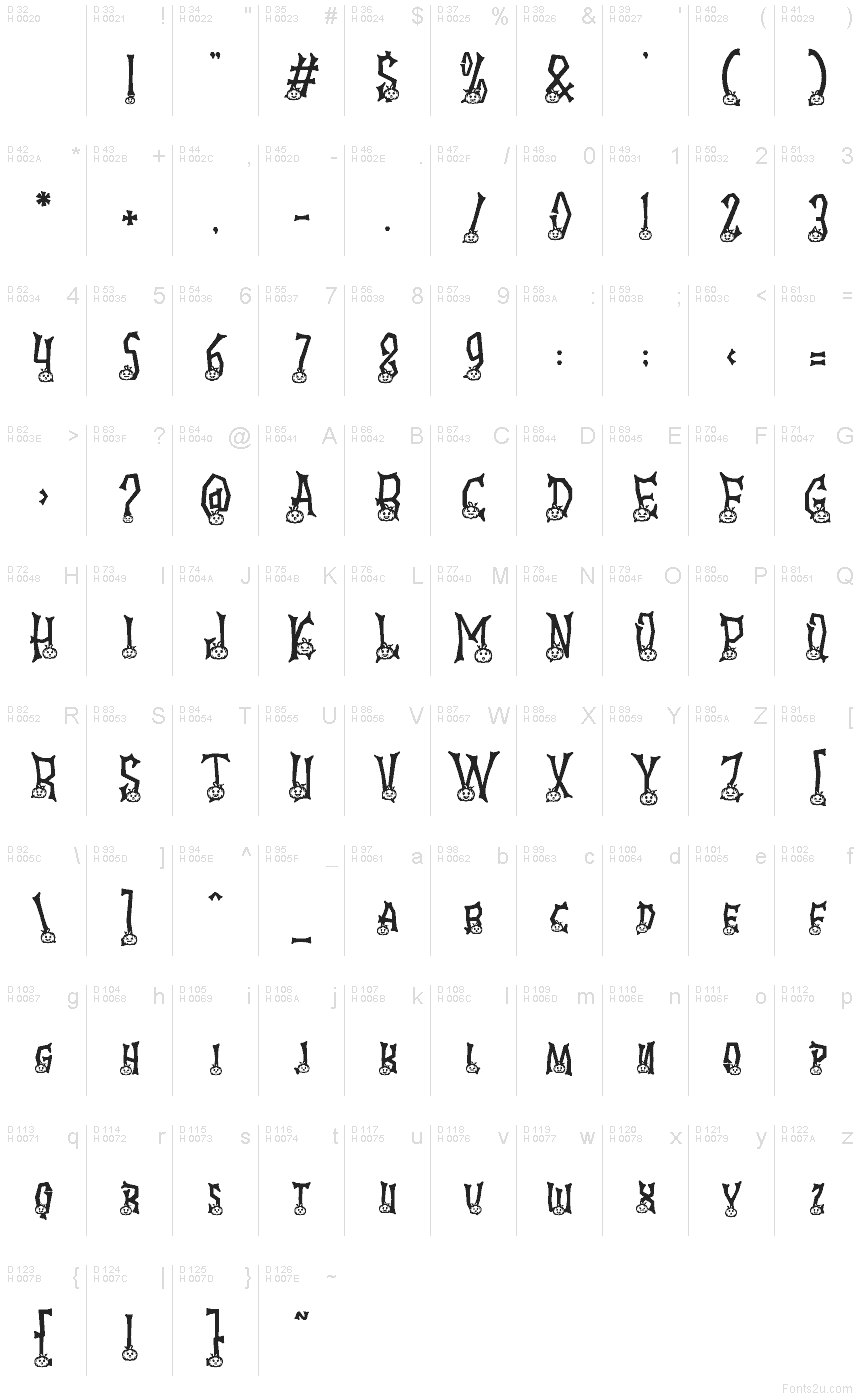
Ghostly Guffaws Pumpkin
Ghostly Guffaws Pumpkin font by PutraCetol Studio is a free Halloween display font. Built within the Ghostly Guffaws family, its scrawled, scratchy letterforms sit atop grinning jack-o’-lanterns, like a haunted marquee. The inky, ragged strokes and wobbly verticals feel hand-carved—playful, a little wicked, and delightfully noisy on the page.
This free font shines on trick-or-treat posters, haunted house flyers, party invites, seasonal merch, social graphics, and event banners. Using Ghostly Guffaws Pumpkin at oversized headings lets the pumpkin bases read clearly; keep body copy in a plain sans serif for contrast. Expect bold, high-impact rhythm—great when you want laughs with your chills.